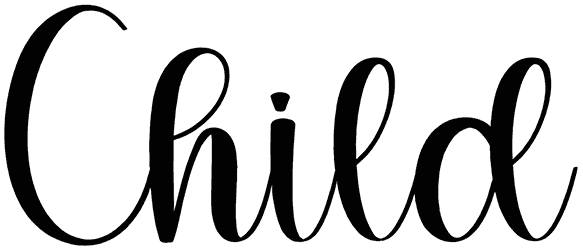
Child Font
Don’t miss the tasteful presence of Child in your lettering if you want it to turn out even better than you imagined. Starting with its visual significance as a calligraphy font, Child will be the ideal match for your branding projects.
It keeps things neat but not too fancy, and neither is it informal or boring, making this artistic font perfectly suited for promoting your catering business, dry cleaners, fabric supplies, music shops, and anything like that you can think of.